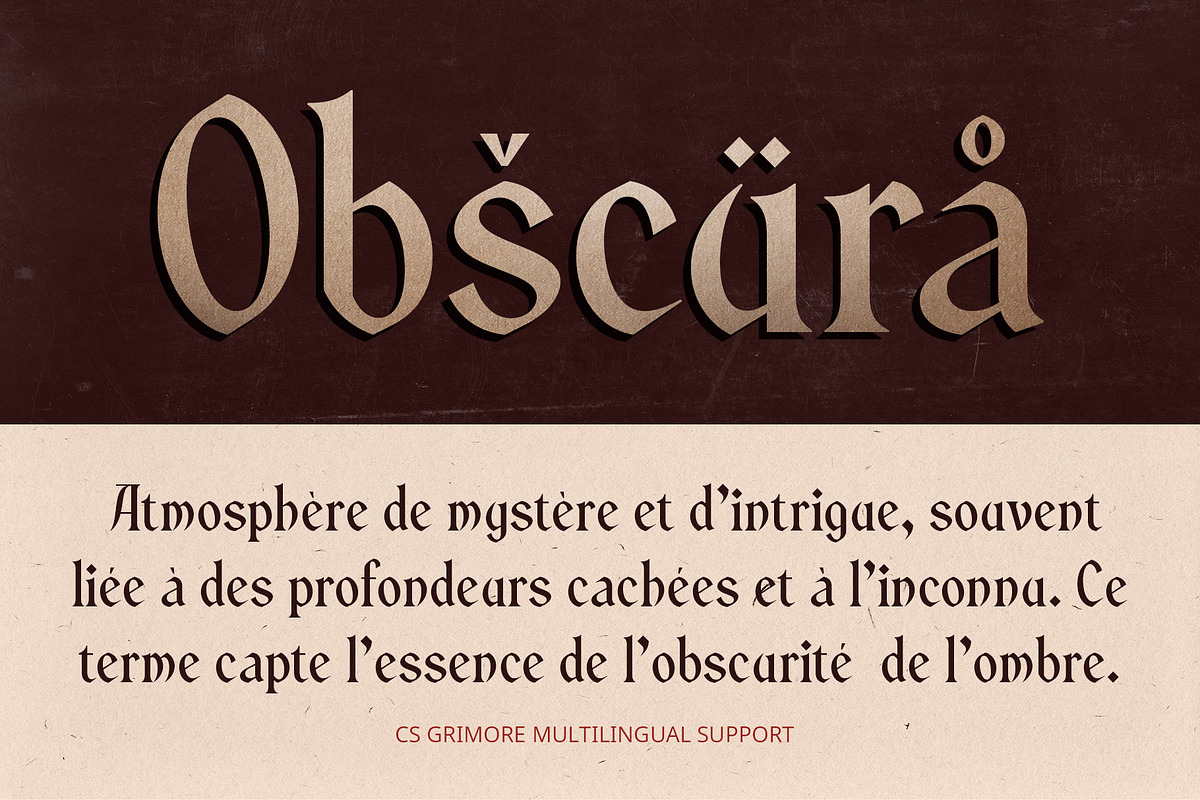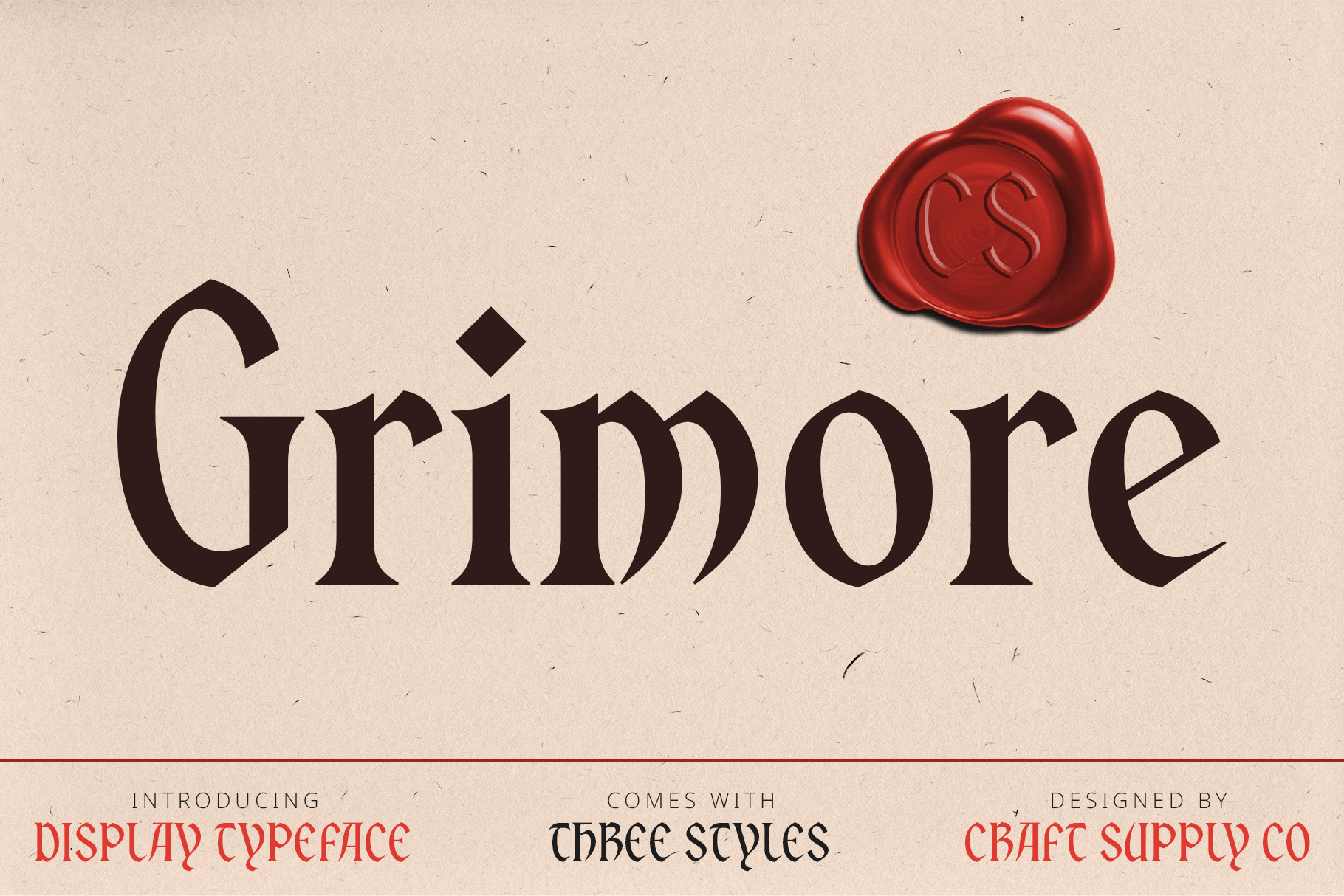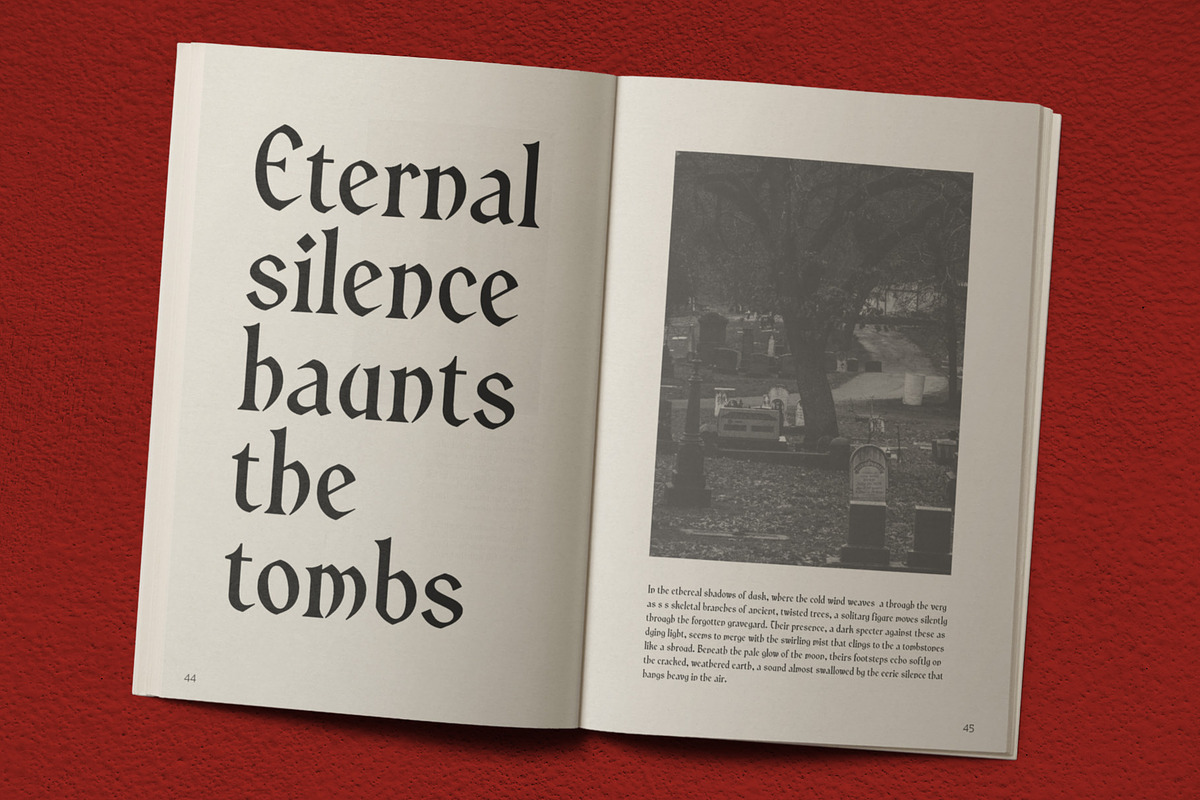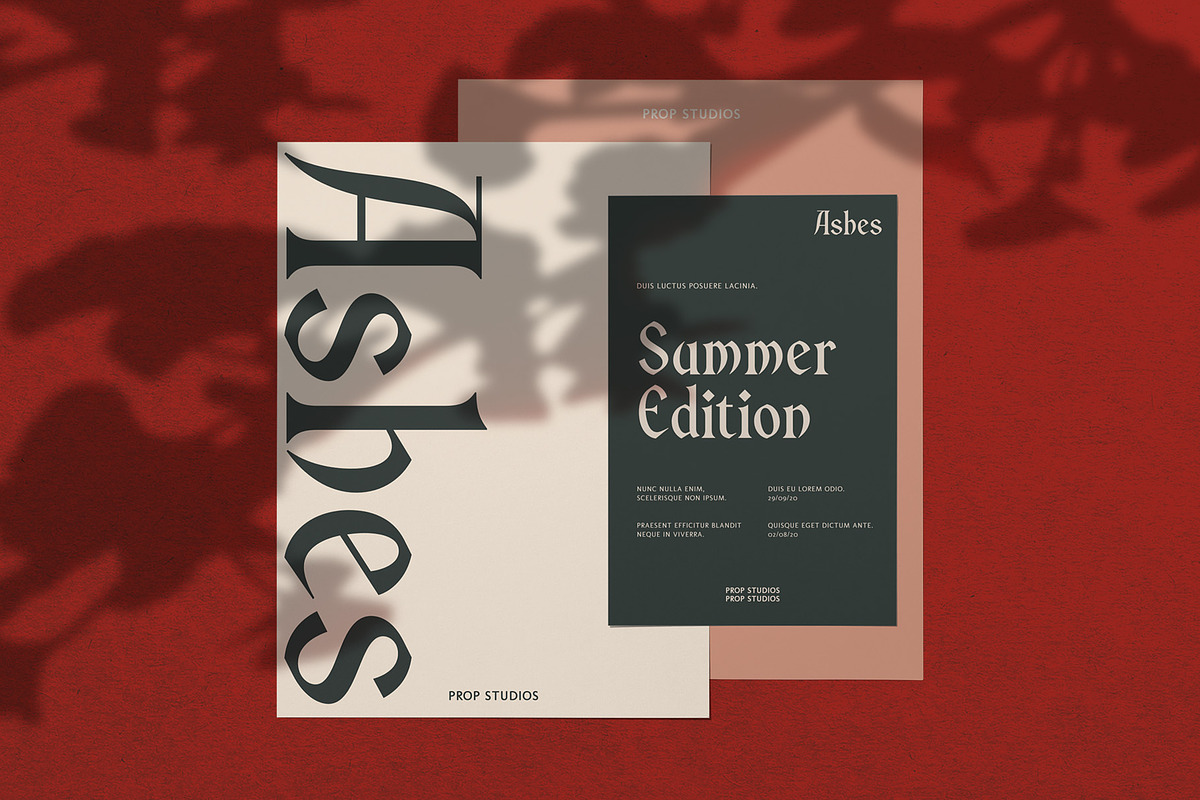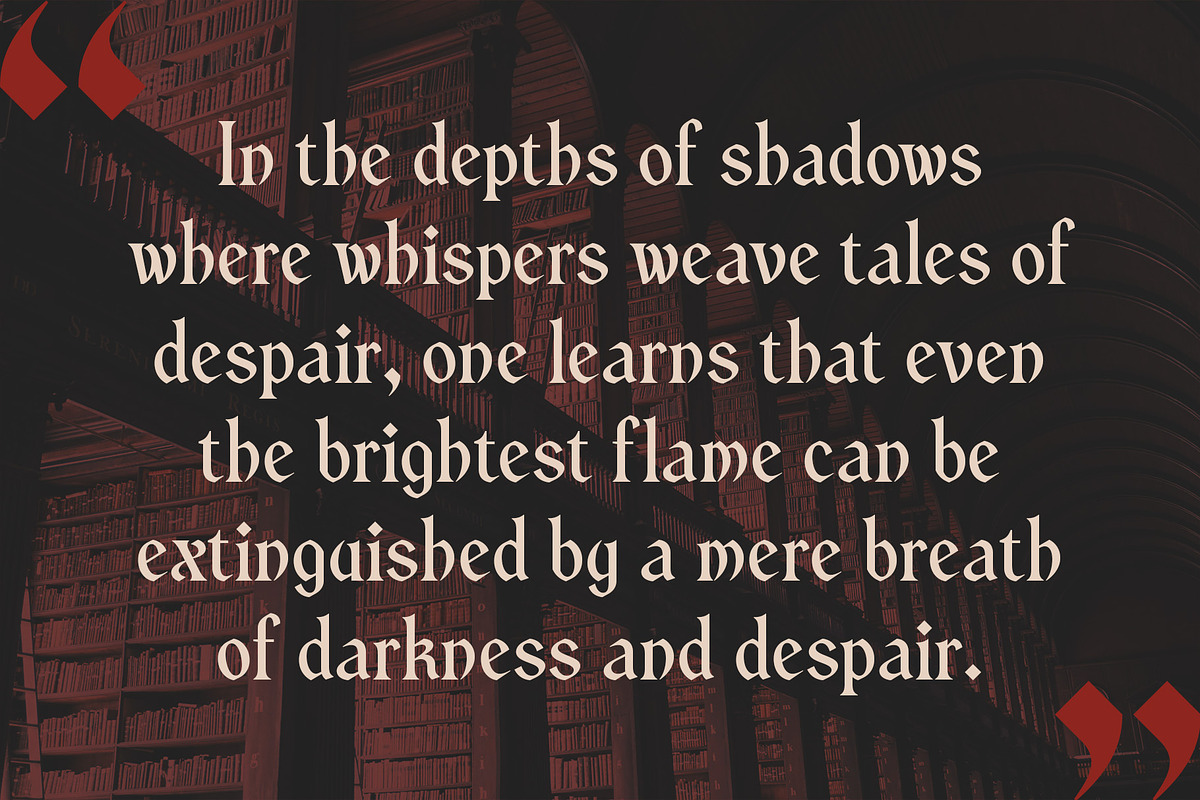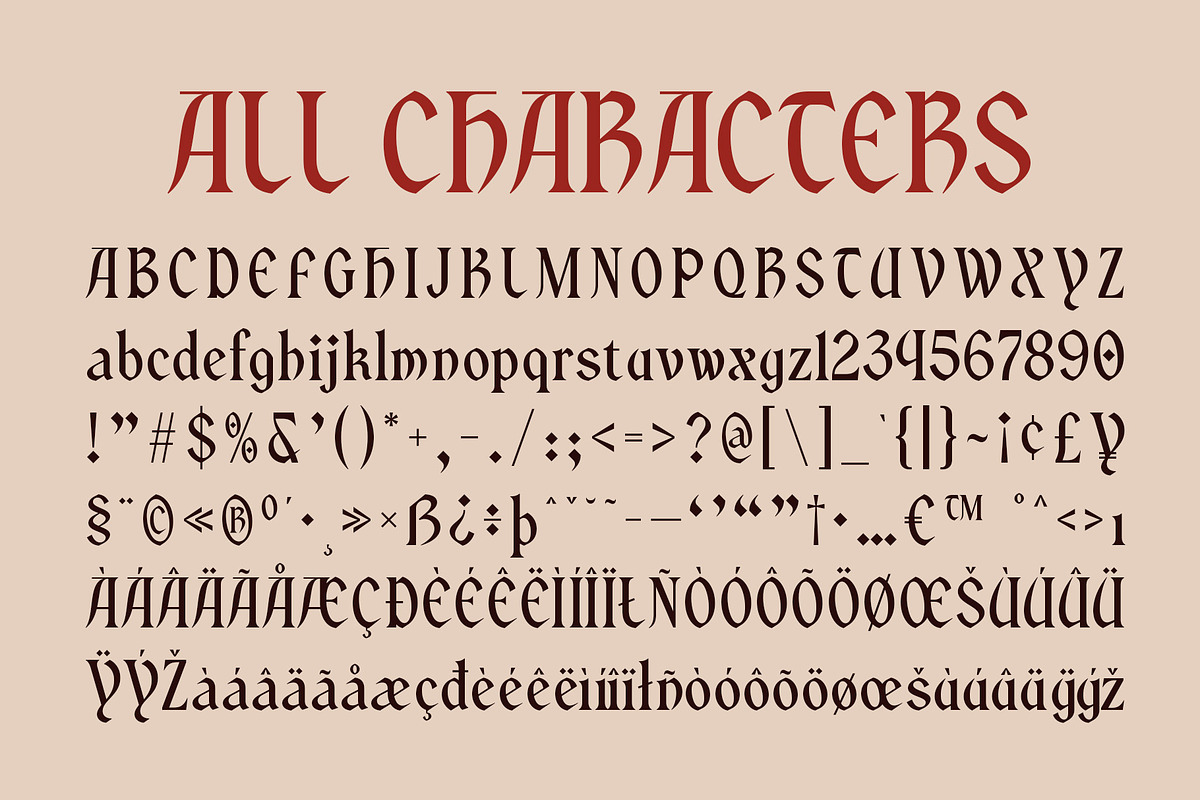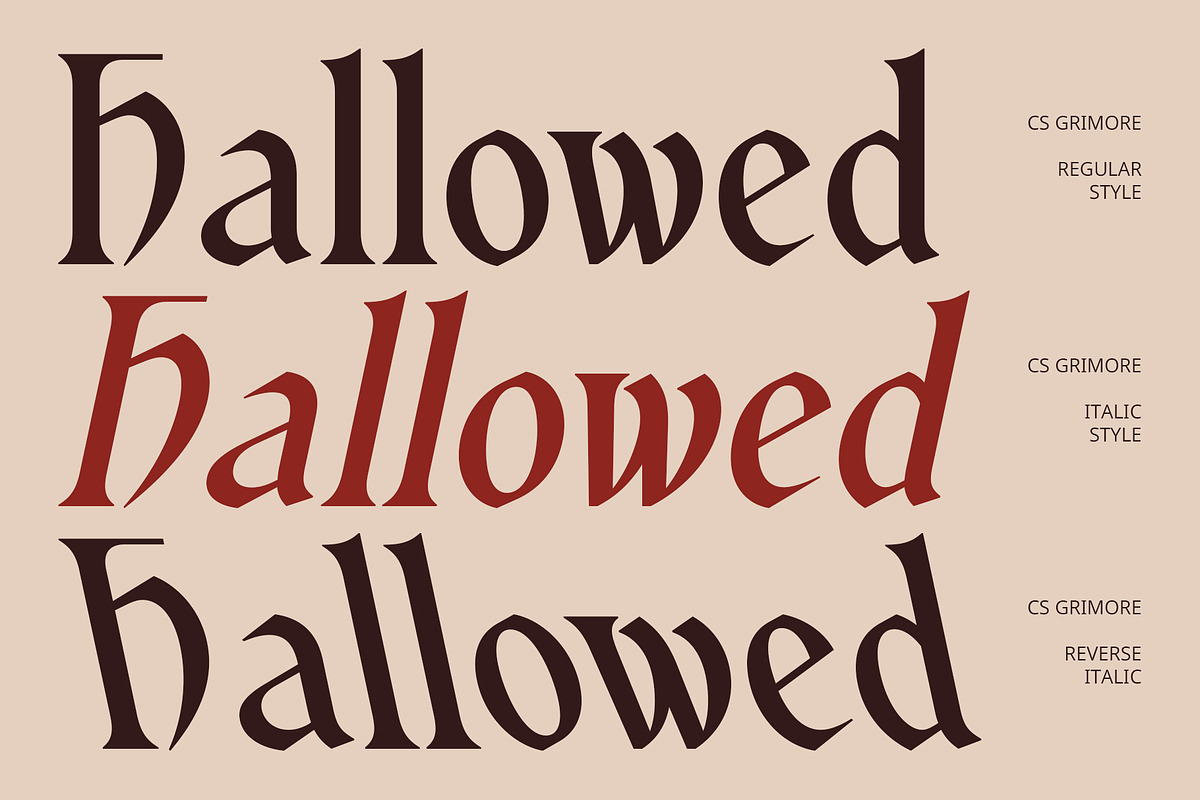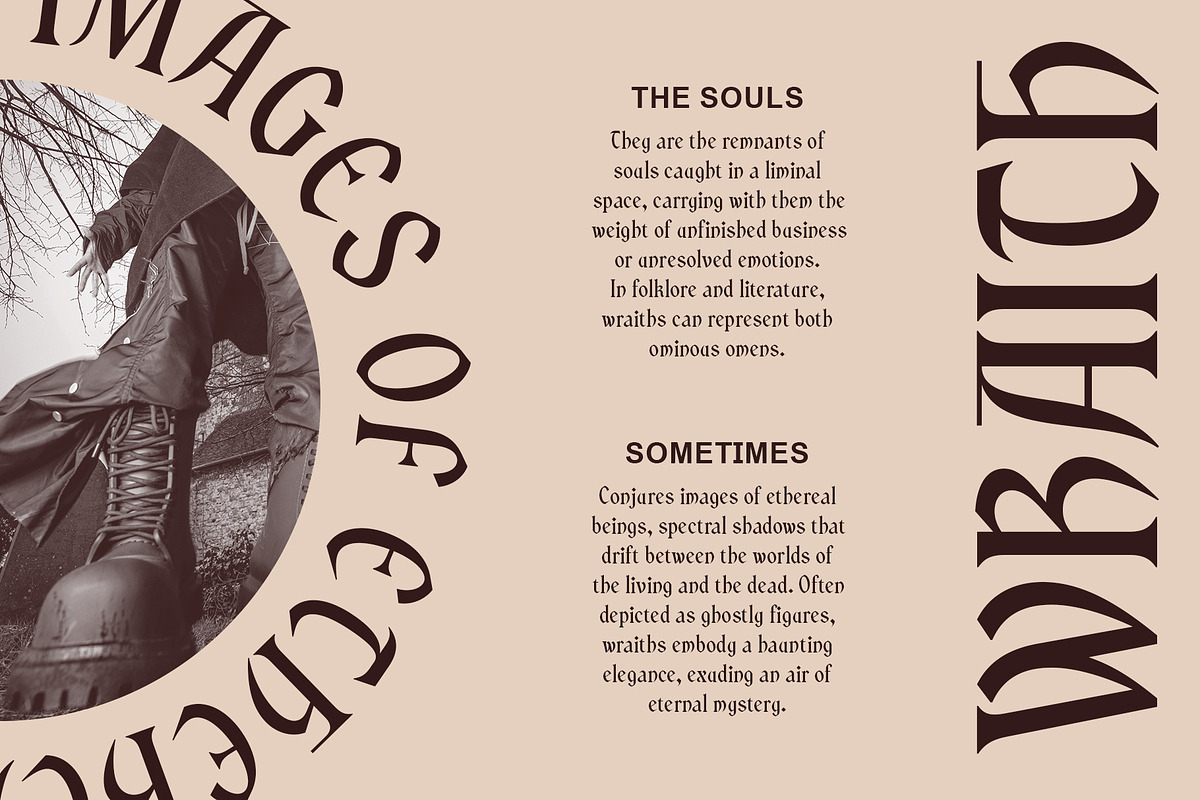
CS Grimore – Gothic Font
CS Grimore: A Striking Gothic Display Font
Ornate and Artistic Design CS Grimore is a captivating display serif font that embodies the essence of Gothic typography through its richly decorative and ornate forms. This typeface exudes a historical elegance, characterized by intricate detailing that elevates its visual impact. The unique design elements create an aura of sophistication, making it perfect for projects that require a touch of artistry.
Dramatic Letterforms with Bold Angles At the heart of CS Grimore are its sharp and bold angles, which contribute to dramatic and eye-catching letter shapes. Each character is crafted with thick lines and clear edges, resulting in a powerful presence that conveys strength and confidence. This font stands out in any design, drawing the viewer’s eye and making a memorable impression.
Perfect for Historical and Formal Contexts Often utilized in designs that seek to highlight historical or formal aesthetics, CS Grimore is an ideal choice for projects requiring a striking and bold appearance. Its Gothic style lends itself beautifully to invitations, posters, and branding that focus on elegance and visual uniqueness. Whether used for a grand event or a contemporary twist on tradition, this font delivers a timeless charm.